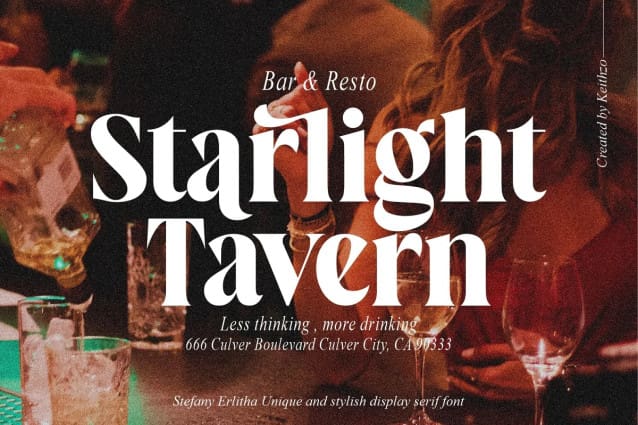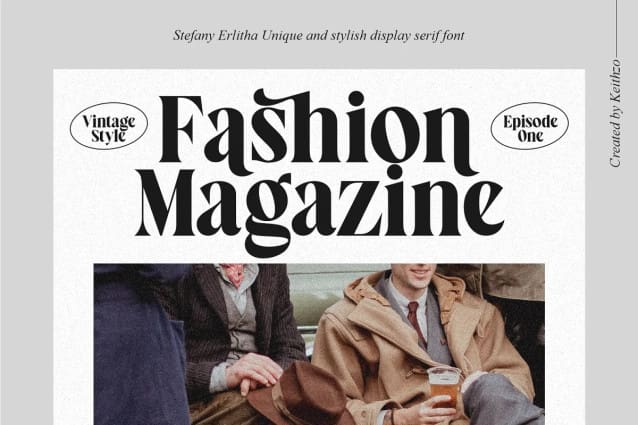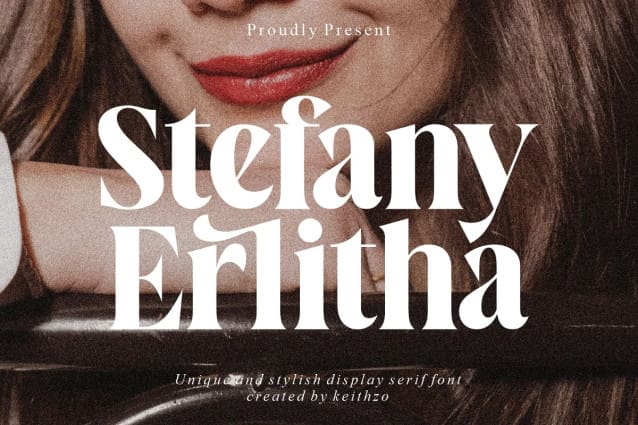
Stefany Erlitha Font
Stefany Erlitha Font, With its eye-catching and distinctive letterforms, this font is perfect for creating a one of a kind look that will set your designs apart. Stefany Erlitha modern yet timeless design ensures that it will remain relevant and attractive for years to come. This font is PUA encoded which means you can access all glyphs and swashes effortlessly!